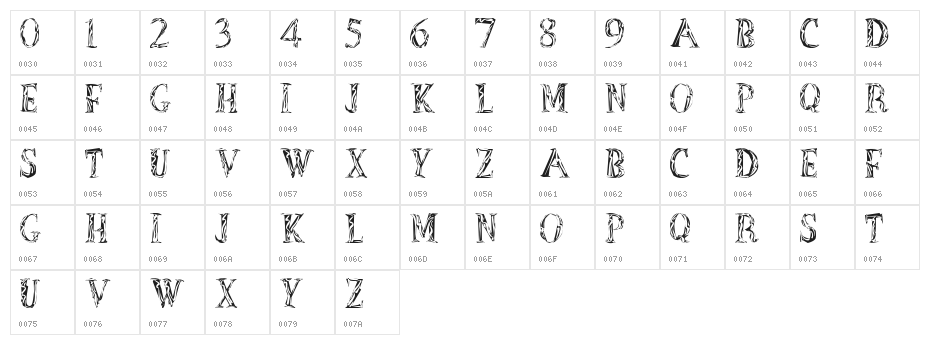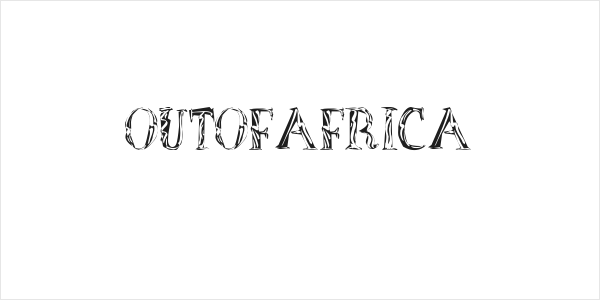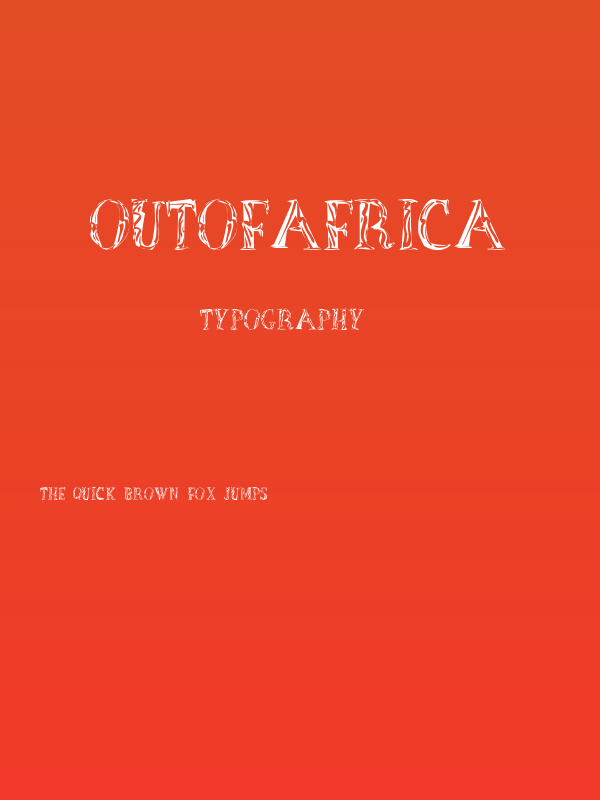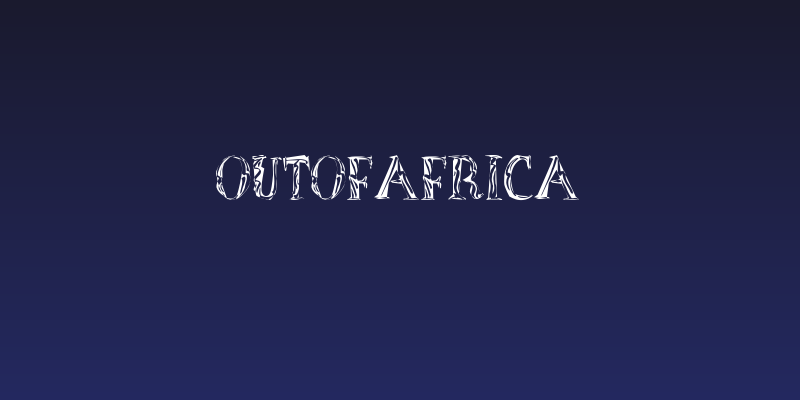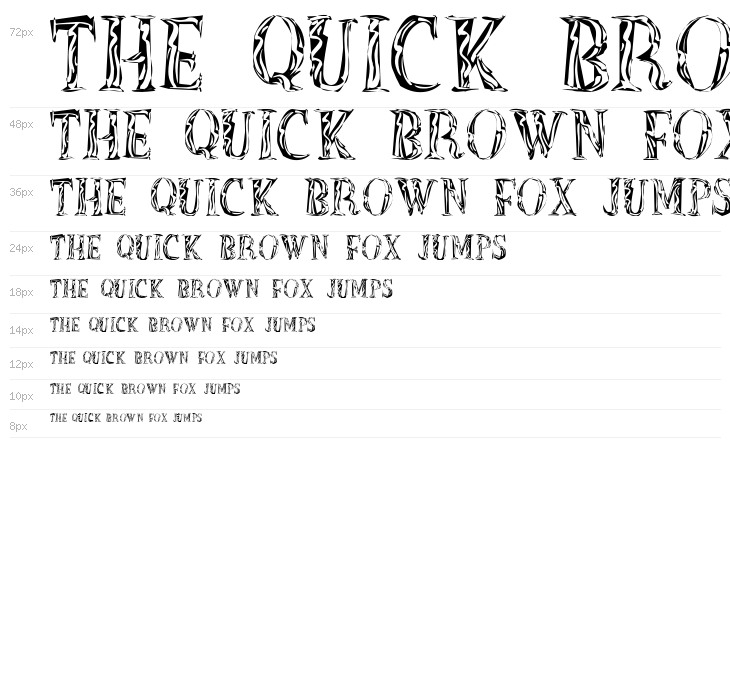
OutOfAfrica Font
OutOfAfrica Description
This font features a bold and dynamic design with a strong decorative flair. Each character is crafted with intricate patterns that resemble natural elements, giving it a wild and adventurous feel. The strokes are thick and uneven, creating a sense of movement and energy. The uppercase letters are particularly striking, with sharp angles and bold lines that make them stand out. The lowercase letters maintain the same decorative style, ensuring consistency throughout the typeface. The numbers and special characters are equally detailed, adding to the overall cohesive look. This font is perfect for projects that require a touch of the exotic and adventurous, making it ideal for themes related to nature, exploration, and creativity.
Proposed ProjectsIdeal for adventure-themed posters, nature-inspired branding, and creative design projects.